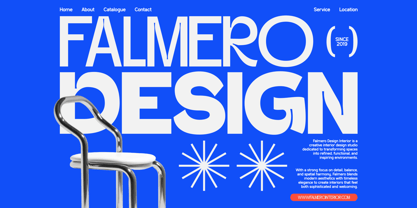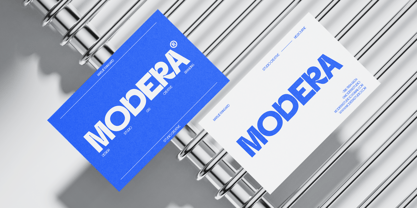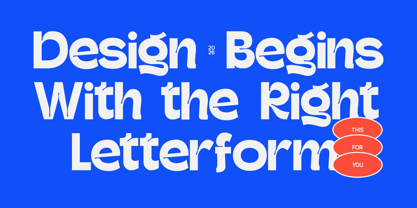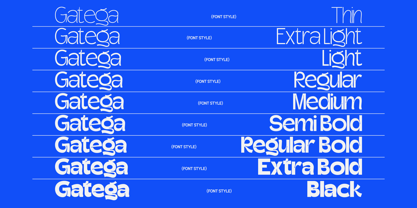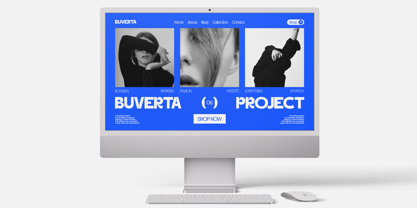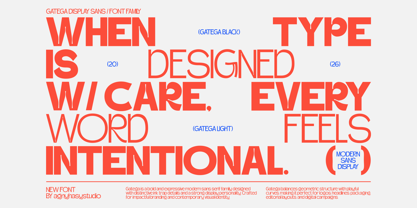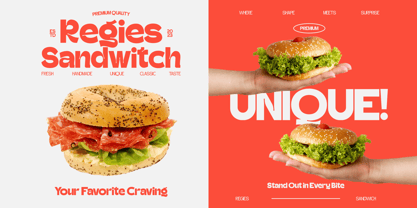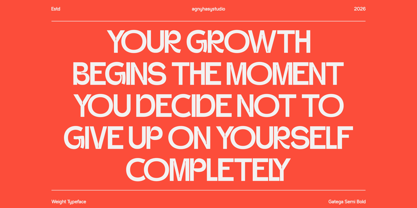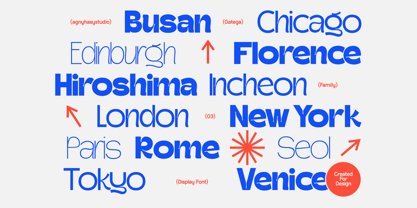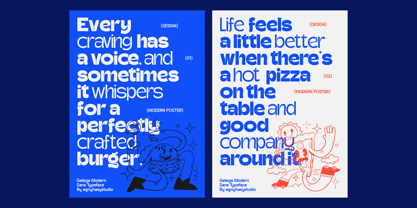
Gatega
von Agny Hasya Studio
Die Schriftfamilie Gatega wurde von Firman Maulana entworfen und von Agny Hasya Studio veröffentlicht. Gatega enthält 18 Stile und Familienpaketoptionen. Mehr über diese Familie
Looking for a Modern Inktrap Sans Serif Font for Bold Branding, Logos, and Editorial Design?
Meet Gatega, a modern inktrap sans serif font family made for bold logos, packaging, editorial layouts, digital interfaces, and contemporary visual identities.
With exaggerated inktrap cuts, playful curves, unexpected joins, and clean geometric proportions, Gatega gives your typography a distinctive, confident, and instantly recognizable character.
Built with 18 font styles, 9 upright weights, and 9 coordinated slanted styles , Gatega gives you the flexibility to move from refined Thin typography to powerful Black headlines while maintaining a consistent visual voice.
Perfect for projects that need to feel modern, expressive, structured, dynamic, and unmistakably original.
Perfect For
• Modern logos and visual identities
• Packaging and product label design
• Editorial headlines and magazine layouts
• Fashion and streetwear campaigns
• Food, beverage, and café branding
• Posters, music artwork, and event graphics
• Creative agency and startup identities
• Websites and digital interfaces
• Social media campaigns and digital advertising
• Motion graphics and promotional design
• Merchandise, apparel, and signage
• Interior, architecture, and lifestyle branding
• Bold display typography and brand systems
What Makes It Stand Out
Gatega combines clean geometric structure with expressive inktrap details, giving you a strong balance of readability, personality, and visual impact.
Its nine upright weights support everything from minimal layouts and refined body-sized typography to powerful display headlines. The coordinated slanted styles add speed,
movement, and emphasis without losing the family’s recognizable character.
This makes Gatega a versatile choice for graphic designers, branding studios, packaging designers, editorial teams, fashion brands, startups, digital creators,
and creative agencies that need a modern sans serif family with a distinctive commercial edge.
Font Features
• Modern inktrap sans serif font family
• 18 coordinated font styles
• 9 upright weights from Thin to Black and 9 slanted styles
• Exaggerated inktrap cuts
• Clean geometric structure
• Playful curves and unexpected joins
• Contemporary proportions
• Uppercase and lowercase characters
• Numerals and punctuation
• Symbols and special characters
• Multilingual Latin support
Designer: Firman Maulana
Foundry: Agny Hasya Studio